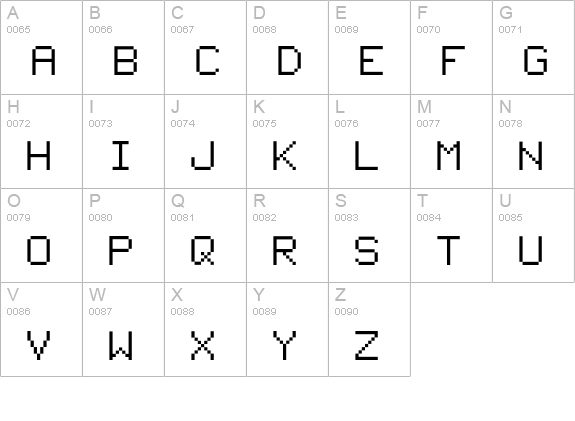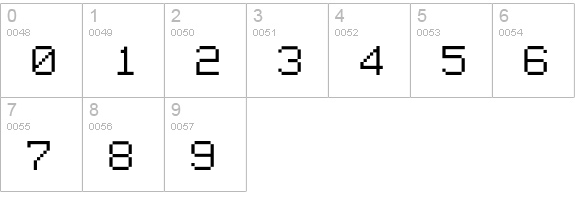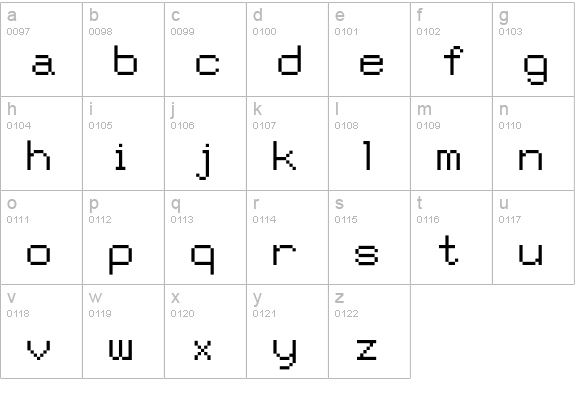
Therm-Norm Font Details
Therm-Norm font is a modern and versatile typeface that effortlessly combines elegance with simplicity. It is the perfect choice for those looking to add a touch of sophistication to their designs. This font features clean lines and well-balanced proportions, making it easily readable and visually appealing. With its wide range of weights and styles, Therm-Norm font offers versatility for various design projects. Whether you are working on a logo, packaging, or a website, this font will make your text stand out and grab attention. One of the best things about Therm-Norm font is that it is free. Yes, you read it right! You can freely download this font at FontsMarket.com. It is a rare find to come across such a high-quality font that is available for free, so take advantage of this opportunity and enhance your designs without breaking the bank. The Therm-Norm font is designed to be highly legible, even at smaller sizes, ensuring that your message is conveyed clearly. Its modern and timeless design makes it suitable for a wide range of projects, from corporate to creative. Whether you are a graphic designer, a web developer, or just someone looking to add a stylish touch to your personal projects, Therm-Norm font is a must-have in your font library. Download it for free at FontsMarket.com and unlock the potential to create stunning designs that leave a lasting impression.